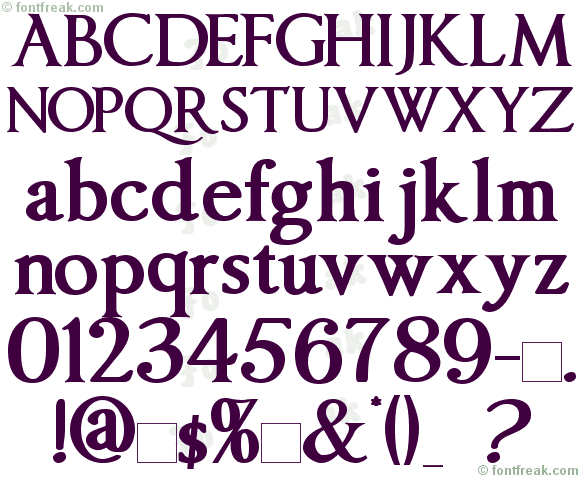
About Imperator
The Imperator font, created by Paul Lloyd, is a striking serif typeface characterized by its elegant, classic design. As a display font, it exhibits a unique combination of boldness and sophistication, making it suitable for a variety of design projects. The visual characteristics of Imperator include a medium stroke weight with a balanced contrast that enhances its readability while maintaining a refined appearance. The letterforms feature decorative elements, particularly in the serifs, which add an air of grandeur and timelessness to the typography. The spacing is thoughtfully designed to ensure clarity, making it visually appealing for both headlines and body text.
This versatile font is ideal for a range of use cases. It shines in wedding invitations, where its elegant curves can convey a sense of romance and tradition. Movie posters also benefit from the Imperator font's bold presence, making titles stand out and grab attention. Restaurant menus can utilize this typeface to create a refined yet approachable aesthetic, enticing diners with its classic charm. Additionally, graphic designers can leverage Imperator for branding projects, giving logos a distinctive and memorable identity. Content creators looking to elevate their work will find that this font adds a layer of sophistication to their visual storytelling.